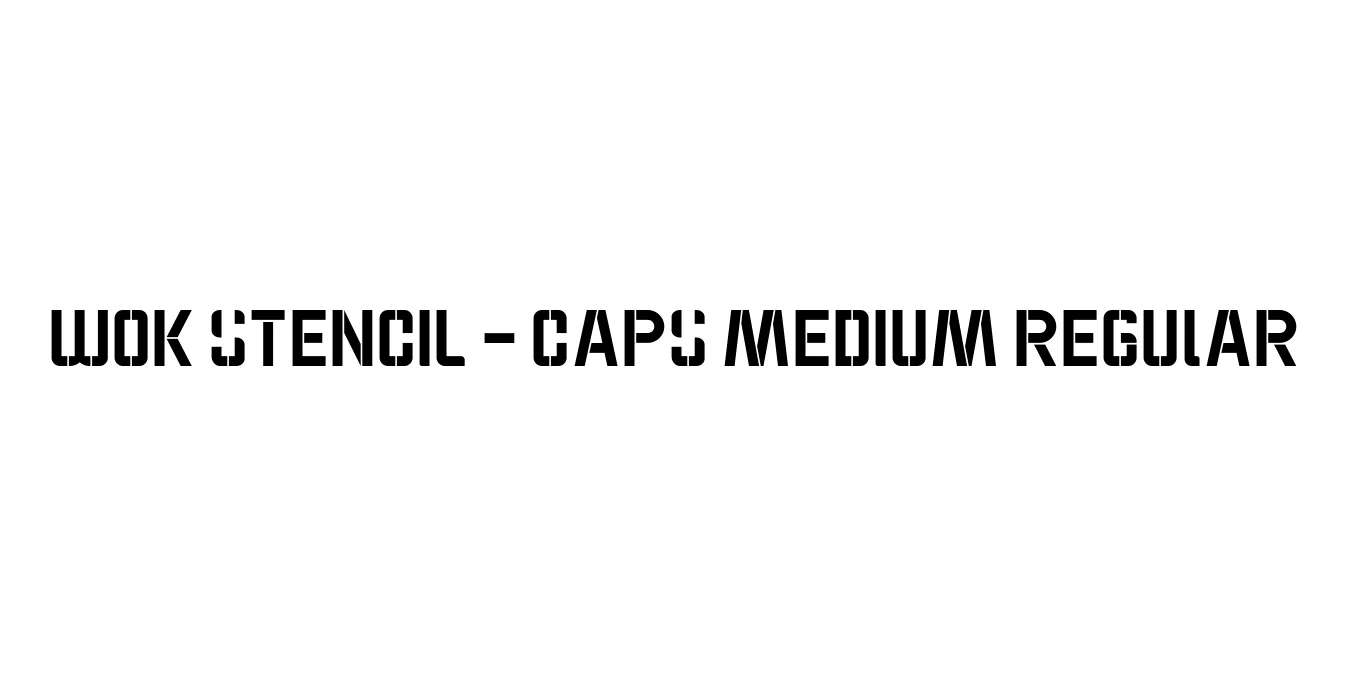
WOK STENCIL - CAPS Medium Regular
Designed by Wahyu & Sani Co.
WOK STENCIL - CAPS Medium Regular is a contemporary stencil typeface designed for high-impact visual communication. It draws inspiration from urban industrial aesthetics and military-style marking, blending sharp geometric lines with clean cut-outs that characterize modern stencil art. The "Medium Regular" weight offers a balanced presence, making it robust enough for large-scale signage while remaining legible in modern digital display settings.
This typeface is particularly effective in branding, packaging, and architectural signage projects. The all-caps design emphasizes a bold, authoritative tone that works perfectly for headlines and creative posters. By stripping away traditional serifs and focusing on minimalist, functional structures, it successfully bridges the gap between raw street-inspired graphics and professional typographic design.
WOK STENCIL - CAPS Medium Regular Best Uses
Creating bold, industrial identities and logos.
High-impact display for urban events and music concerts.
Adds a modern, rugged aesthetic to consumer goods.
Ideal for eye-catching thumbnails, headers, and viral quotes.